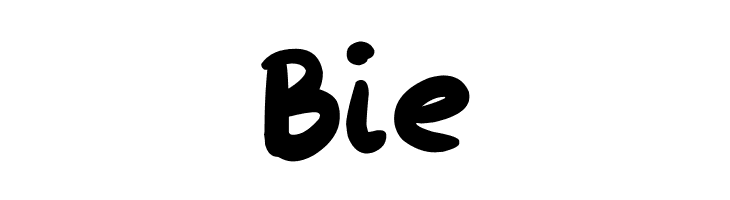
A playful, casual handwritten font with smooth, rounded strokes.
A bold, playful handwritten font with rounded edges and a casual style.
A playful, handwritten font with fluid, interconnected strokes.